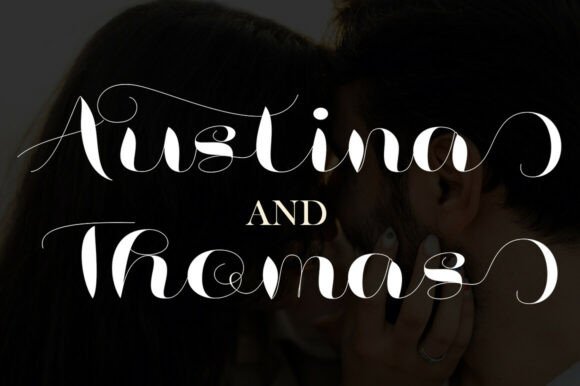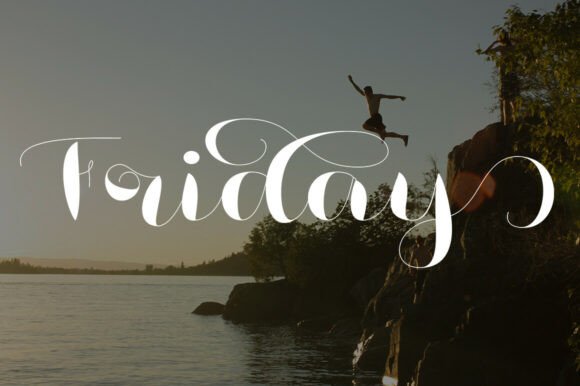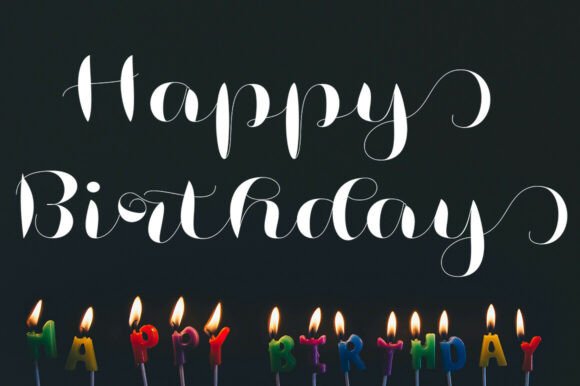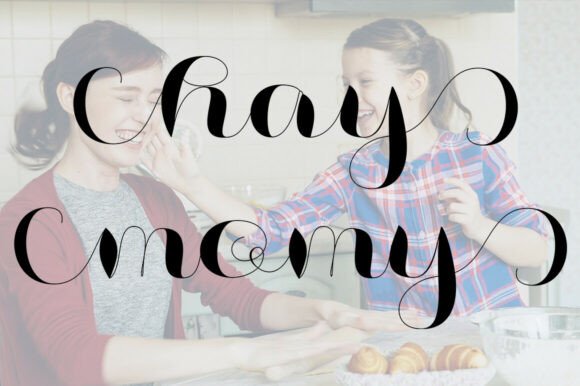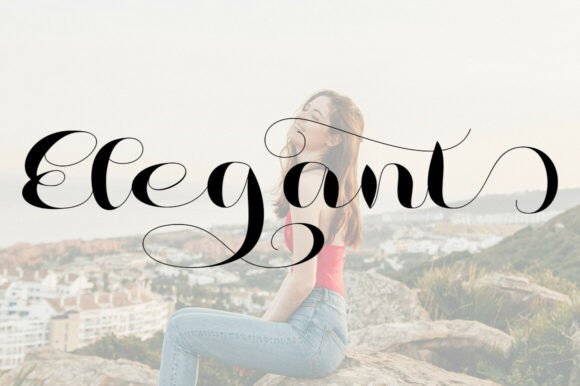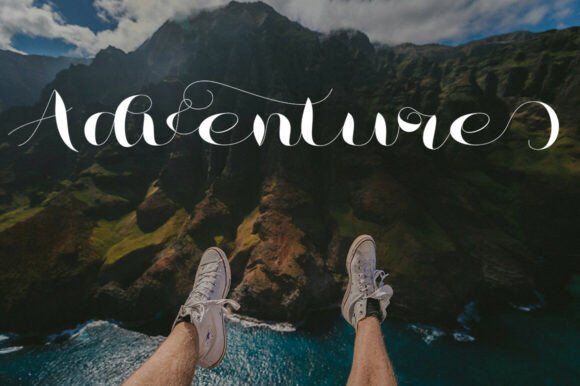
Unlock the Elegance of Your Designs with Argent Script Font
You’ve finally landed that big design project – a wedding invitation that needs to exude luxury and sophistication. You’ve got the concept, the colors, and the images, but something’s still missing. That’s where the perfect font comes in – one that can elevate your design from ordinary to extraordinary.
Enter the Argent Script Font, a stunning calligraphy font that combines classic elegance with a modern twist. With its smooth, clean, and refined letterforms, it’s the perfect choice for designers looking to add a touch of sophistication to their projects. Whether you’re working on a high-end fashion brand, a luxury restaurant, or a special occasion invitation, Argent Script Font is the ideal companion to help you create stunning typography that leaves a lasting impression.
Key Features of Argent Script Font
- Font Family: Argent Script, Argent Script Italic, Argent Script Bold, Argent Script Bold Italic
- Unique Characteristics: Elegant, cursive script font with refined details, suitable for invitations, greeting cards, and other formal events
Designer Review: Argent Script Font
I recently had the chance to work with the Argent Script Font, and I must say it’s a beautiful addition to any design project. Here’s my honest review.
- The font’s elegant and sophisticated look is perfect for high-end branding and luxury products.
- It has a smooth and flowing feel to it, making it great for long text passages and quotes.
- The font’s script style is well-executed, with clear and readable letterforms.
- The font may not be the best choice for digital screens, as the letterforms can be quite thin and may not display well at small sizes.
- It may be a bit too ornate for some design projects, so it’s essential to use it sparingly and in the right context.
- The font lacks a clear, bold weight option, which may limit its versatility in certain designs.
Overall, the Argent Script Font is a beautiful and elegant font that’s perfect for high-end design projects. While it has some limitations, it’s a great addition to any designer’s toolkit. Just be mindful of its use in digital screens and be sure to use it in the right context.
For a more elegant look, use Argent Script Font for headings and pair it with a clean sans-serif font for body text.
- Use the font for headings, titles, or quotes to add a touch of elegance to your design.
For a more dramatic effect, use Argent Script Font in bold or italic styles.
For a more professional look, use Argent Script Font consistently throughout your design.
Argent Script Font is perfect for:
- Special occasion cards and gift tags
- Book covers and publishing materials
Remember to use Argent Script Font in moderation to avoid overwhelming your design. Balance it with clean and simple elements for maximum impact.
For optimal readability, we recommend using the Argent Script Font at a minimum size of 18 points (14.4pt) and a line height of at least 1.5x the font size. This will ensure that the text remains legible and visually appealing, even at larger sizes.